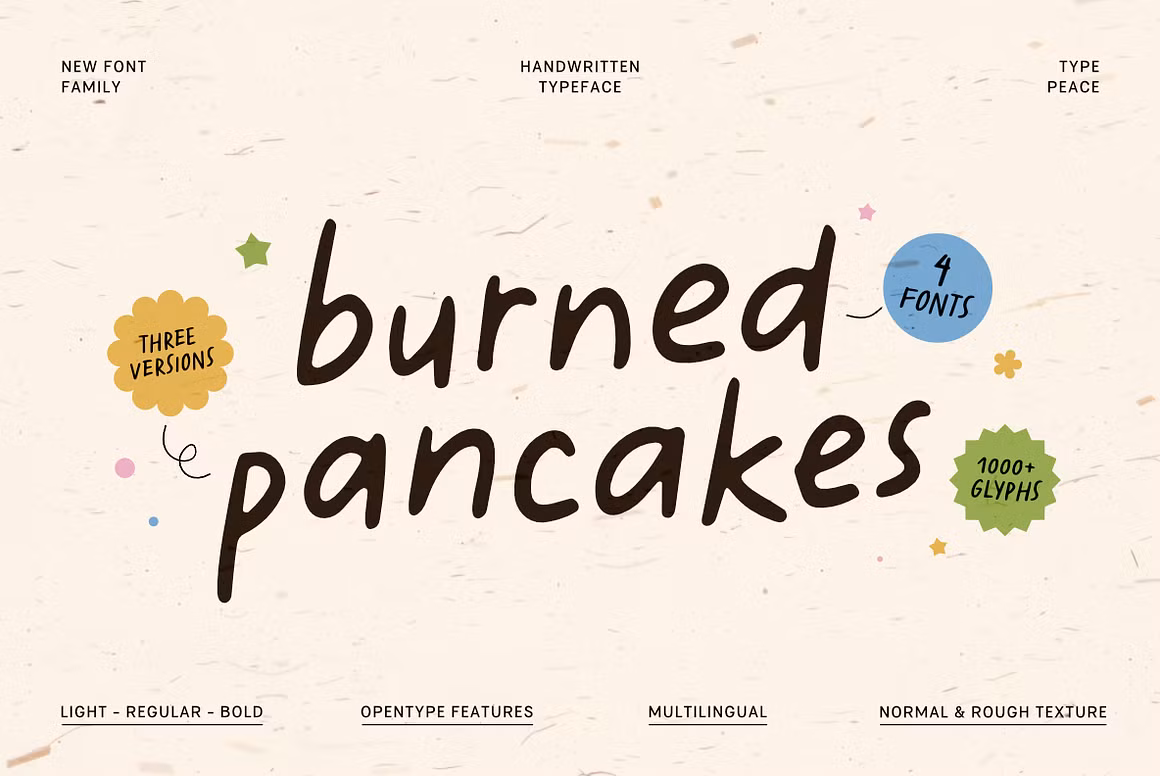
Burned Pancakes is a laid-back and playful handwritten font by Type Peace, offering a cozy, informal rhythm that feels warm and personal. Equipped with three alternate versions for each letter and rich OpenType features, it brings a natural, dynamic touch to designs like logo creation, packaging, branding, social media visuals, and print media.
Font Features
– Four styles: Light, Regular, Bold, Rough –
– Three alternates per letter for organic variation –
– Over 1,000 glyphs (letters, numerals, punctuation) –
– OpenType features: standard/discretionary ligatures, stylistic sets & alternates –
– Multilingual support across Latin scripts, including Western European, Central European, Southeastern European, Oceanian, Vietnamese, Esperanto –
Font Style: Handwritten Script